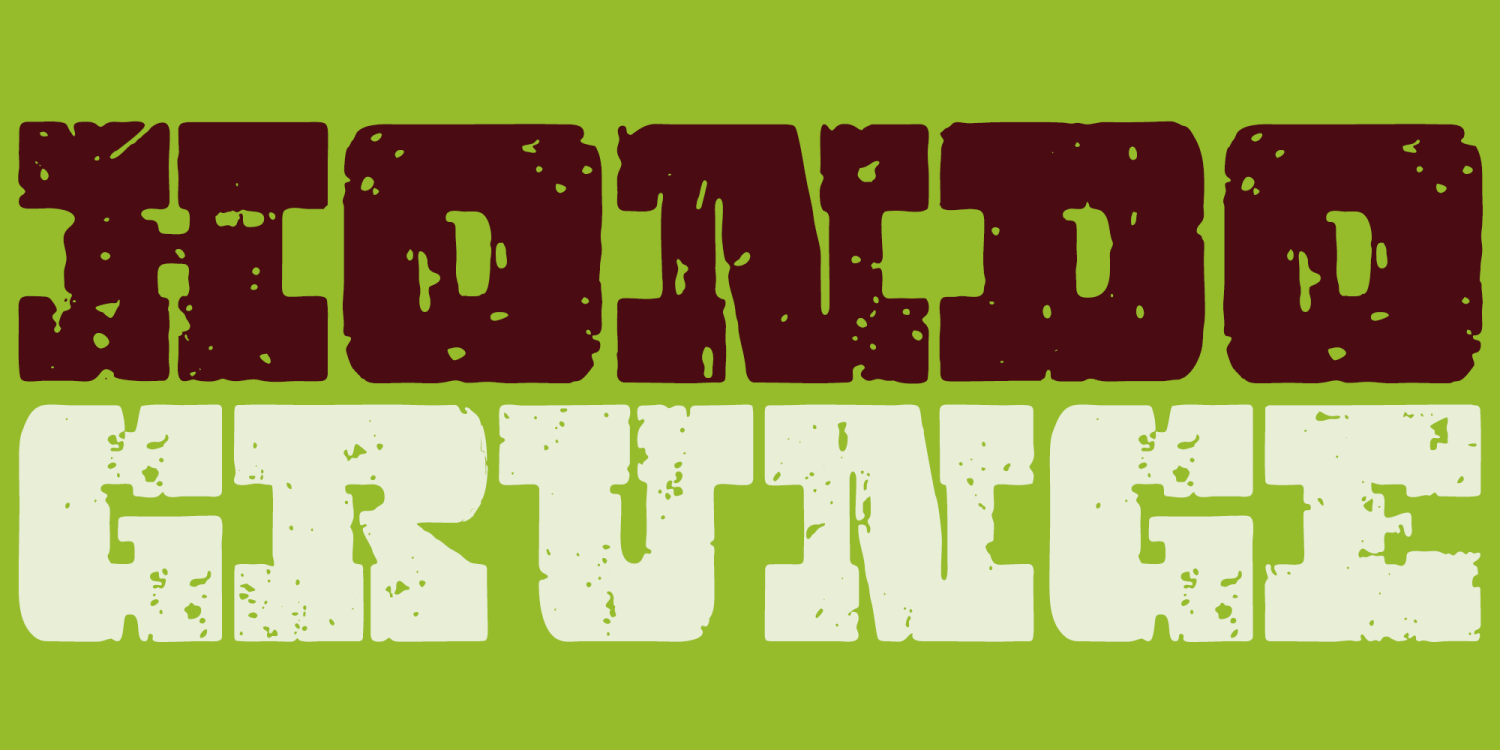
Hondo Grunge
Hondo Grunge is a collection of ultra-bold, eroded slab serif display faces that takes the high-performance punch of Hondo and drenches it in grit. Built with heavy wood type energy, a dynamic stance, and rugged texture throughout, Hondo Grunge looks like it’s been dragged through dust, asphalt, and bad weather—and came out louder. Decorative yet functional inktraps add extra bite and rhythm to the forms, giving the family an aggressive, hardcore edge that still reads cleanly in big typography.
The family includes multiple styles along with Slant and Backslant variants for added motion and impact, making it easy to push everything from bold western swagger to fast, brutal headline energy. For even more organic variation, Hondo Grunge includes a complete alternate set of base characters; enabling contextual alternates forces the font to continually switch between the primary and alternate sets as you type, creating a spontaneous, less-repetitive texture without manual swapping.
Use Hondo Grunge for posters, logos, branding, apparel, signage, packaging, sports graphics, event promos, band merch, and any design that needs a heavy slab voice with distressed grit and built-in typographic variation.